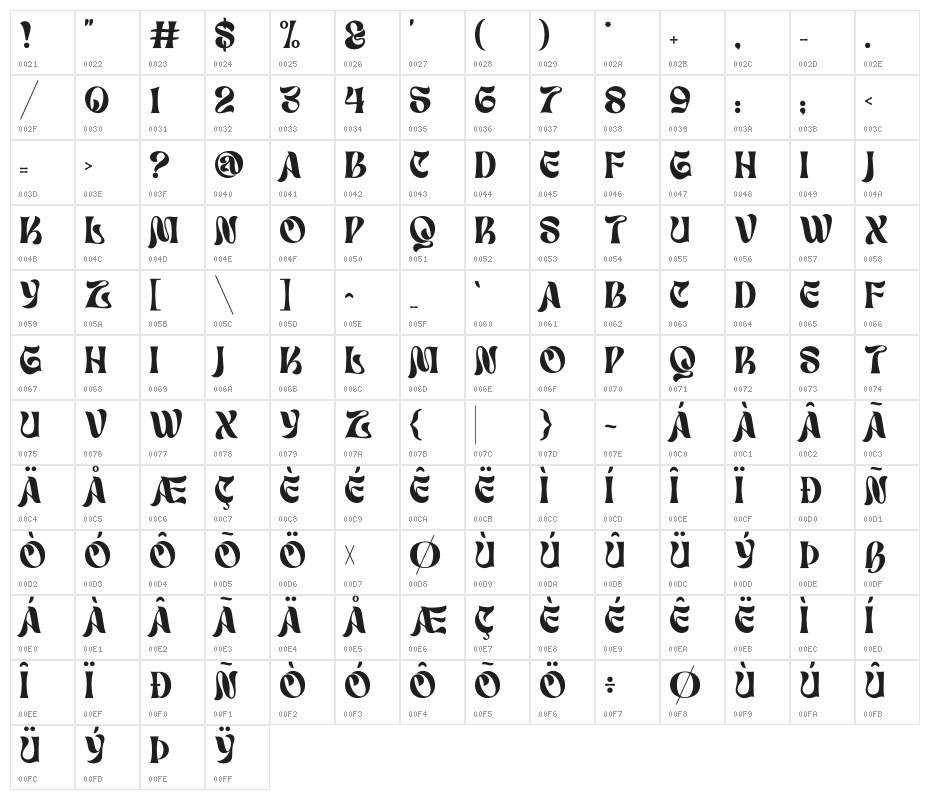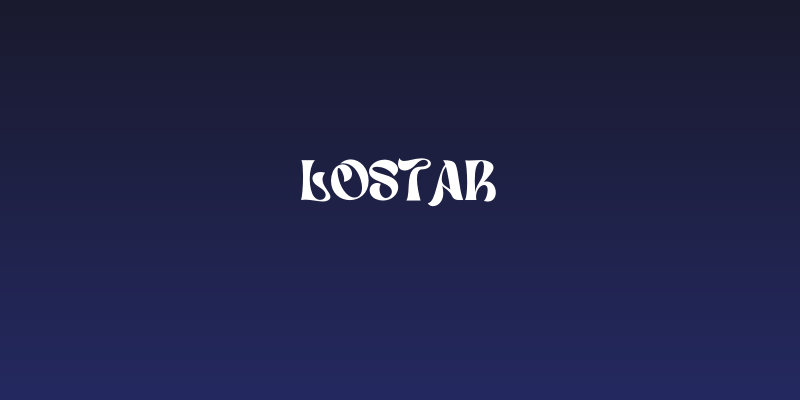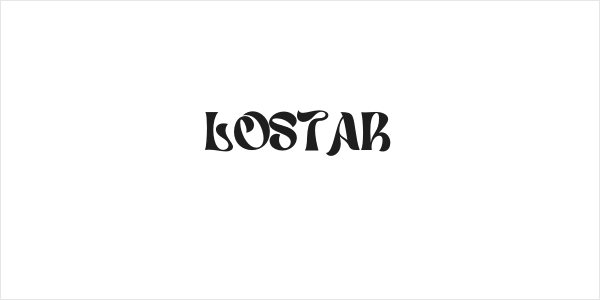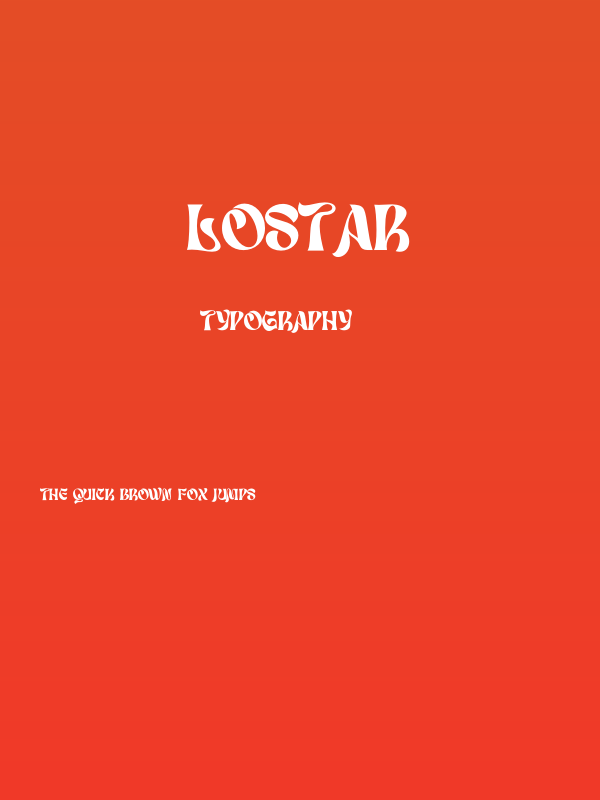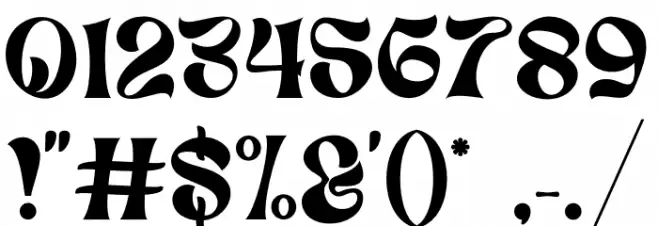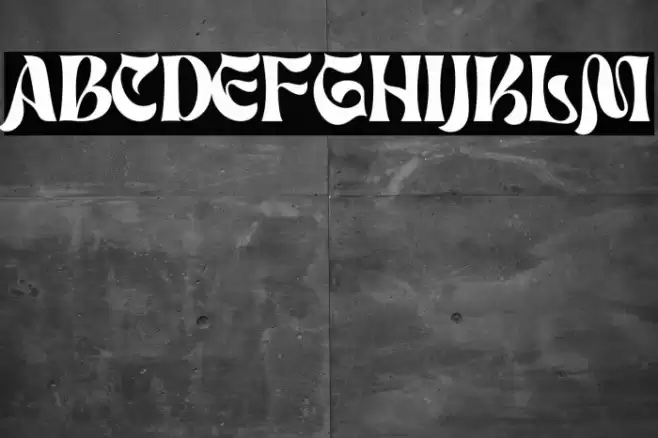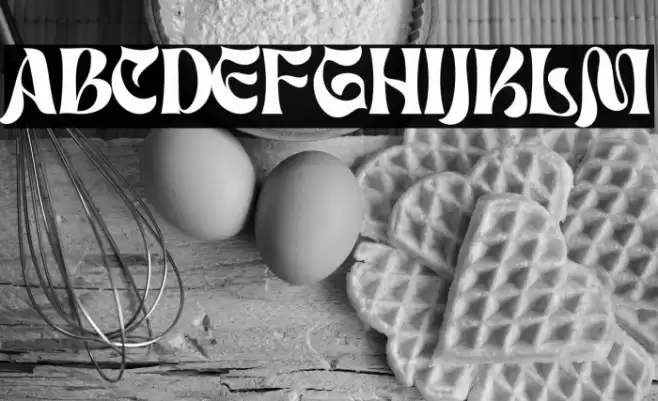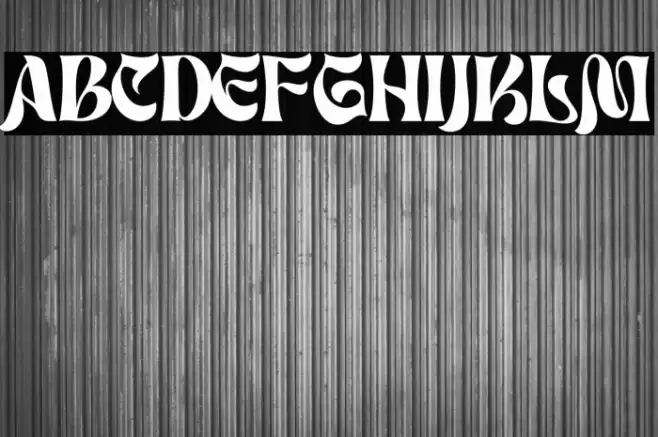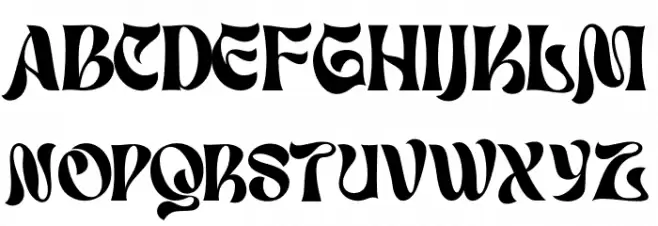
Lostar Font
Lostar Description
This font features a bold and decorative style with a unique flair. The characters are designed with thick strokes and high contrast, giving them a strong visual impact. The letters have a playful, almost whimsical appearance, with exaggerated curves and angles that create a sense of movement. The overall design is eye-catching and distinctive, making it suitable for creative and artistic projects. The font includes a full set of uppercase and lowercase letters, numbers, and a variety of special characters, ensuring versatility in its application.
| Proposed Projects | Ideal for posters, branding, album covers, and creative design projects. |